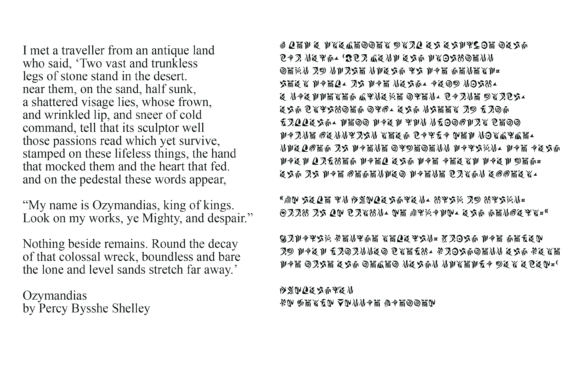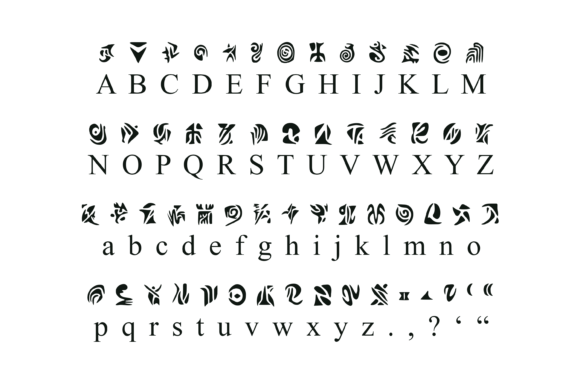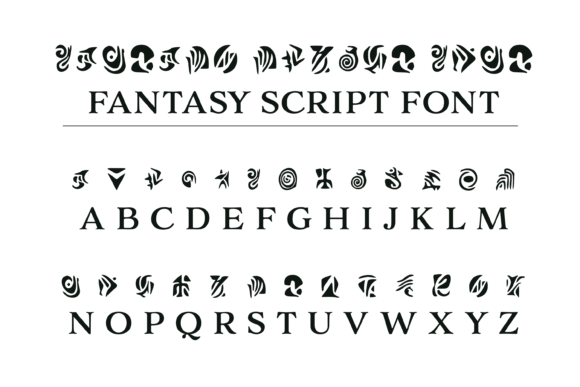
Fantasy Script 18 Font: The Perfect Addition to Your Fantasy World
Are you a designer, writer, or crafter looking to add a touch of magic to your next project? Look no further than the Fantasy Script 18 Font! This enchanting font is perfect for anyone working on a Dungeons and Dragons campaign, fantasy LARP adventure, novel, or any other creative endeavor that requires a dash of whimsy and wonder.
A Font Fit for Fantasy
The Fantasy Script 18 Font is a beautifully crafted script font that is sure to transport your readers to a world of fantasy and adventure. With its intricate lettering and elegant flourishes, this font is perfect for creating eye-catching titles, captions, and text that will make your project stand out from the crowd.
Whether you’re a seasoned designer or a beginner crafter, this font is easy to use and can be incorporated into a variety of projects, from digital documents to print materials. The font includes the standard English alphabet and basic punctuation, making it versatile and convenient to use.
Perfect for Dungeons and Dragons and Fantasy LARP Adventures
If you’re a fan of Dungeons and Dragons or fantasy LARP adventures, you know how important it is to create an immersive experience for your players. The Fantasy Script 18 Font is the perfect addition to your game materials, whether you’re creating character sheets, campaign posters, or treasure maps.
This font will add a touch of authenticity to your game materials, transporting your players to a world of magic and wonder. And with its clear and legible design, it’s easy to read and understand, even for players who are new to the game.
Ideal for Novelists and Writers
If you’re a novelist or writer working on a fantasy novel, the Fantasy Script 18 Font is a great choice for your project. This font can be used to create eye-catching chapter headings, quotes, and other design elements that will make your book stand out from the crowd.
And with its elegant design, this font is perfect for creating a sense of atmosphere and mood in your writing. Whether you’re writing a epic fantasy novel or a romantic fantasy story, this font will help you to create a captivating and immersive reading experience.
Crafting and Design Applications
The Fantasy Script 18 Font is not just limited to digital projects – it’s also perfect for crafters and designers who work with physical materials. Whether you’re creating handmade cards, scrapbooking pages, or other craft projects, this font can be used to add a touch of magic and whimsy to your designs.
This font can be used for a variety of crafting and design applications, including:
- Handmade cards and invitations
- Scrapbooking pages and photo albums
- DIY posters and prints
- Hand-painted signs and banners
Key Features of the Fantasy Script 18 Font
The Fantasy Script 18 Font has a range of key features that make it perfect for designers, writers, and crafters. Some of the key features of this font include:
- Standard English alphabet and basic punctuation
- Elegant and intricate lettering design
- Clear and legible design
- Perfect for digital and print projects
- Easy to use and versatile
The Fantasy Script 18 Font is a beautifully crafted script font that is perfect for anyone working on a fantasy-themed project. Whether you’re a designer, writer, or crafter, this font is sure to add a touch of magic and whimsy to your work.
With its elegant design, clear and legible lettering, and versatile features, this font is perfect for a range of applications, from Dungeons and Dragons and fantasy LARP adventures to novels, crafting, and design projects.